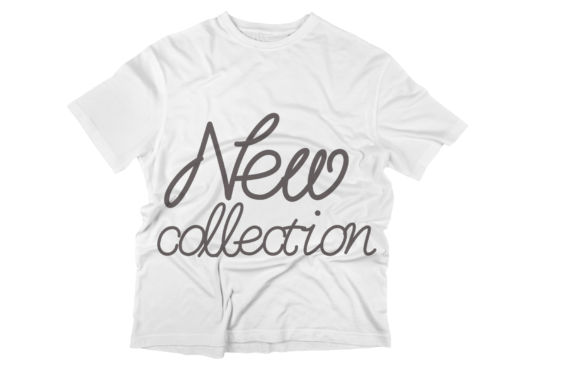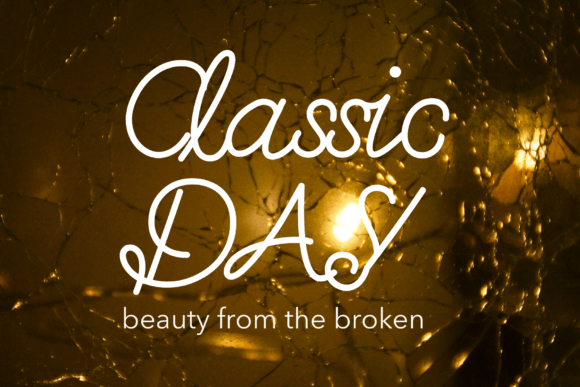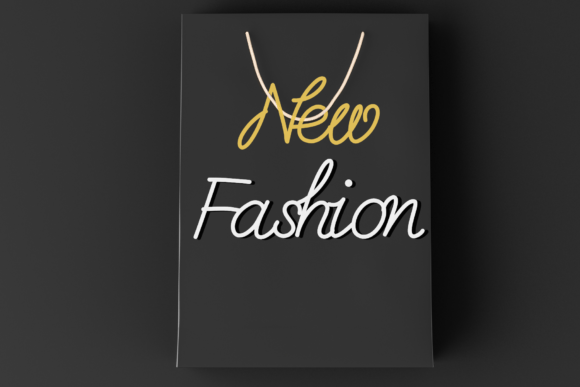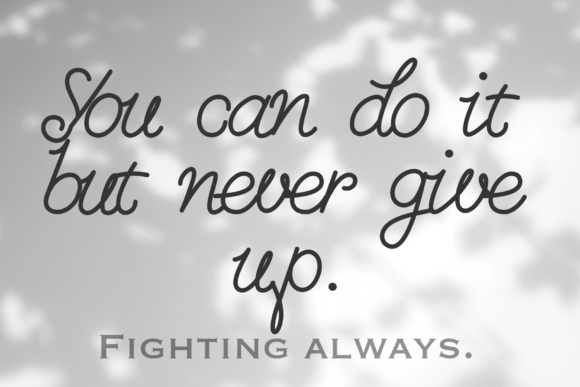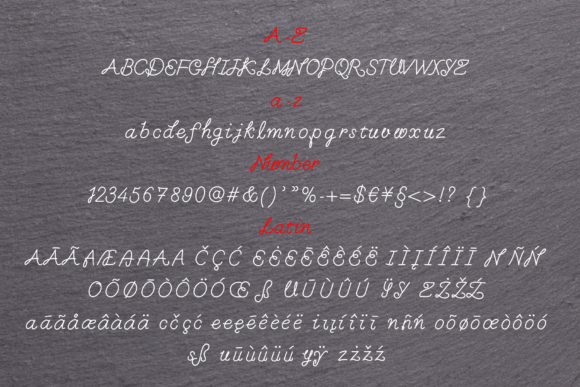
Bend Font: Elevate Your Designs with Elegance and Sophistication
Are you tired of using the same old fonts in your designs? Look no further than the Bend Font, a stunning handwritten font that is sure to become your new favorite. With its perfect blend of classy calligraphic influences and modern freshness, Bend Font is the ideal choice for designers and crafters looking to elevate their projects to new heights.
The Story Behind Bend Font
Bend Font is a meticulously crafted font that boasts a unique and exquisite design. Its creator has masterfully blended traditional calligraphic elements with contemporary twists, resulting in a font that is both elegant and fresh. Whether you’re working on a branding project, creating wedding invitations, or designing social media graphics, Bend Font is sure to make a lasting impression.
Key Features of Bend Font
- Handwritten with love: Bend Font is a true handwritten font, infused with the warmth and personality of human touch.
- Classy calligraphic influences: The font’s design is rooted in traditional calligraphy, giving it an air of sophistication and elegance.
- Contemporary and fresh: Despite its classic influences, Bend Font feels modern and up-to-date, making it perfect for a wide range of design applications.
- Highly versatile: Use Bend Font for everything from logos and branding to packaging, invitations, and more.
Why Choose Bend Font?
With so many fonts available, why choose Bend Font? Here are just a few compelling reasons:
- Stand out from the crowd: Bend Font’s unique design ensures that your projects will stand out from the competition.
- Easy to read: Despite its elegant design, Bend Font is highly legible, making it perfect for body text and headlines.
- Customizable: Experiment with different font sizes, colors, and styles to make Bend Font your own.
- Time-saving: With Bend Font, you can create stunning designs in no time, saving you hours of work and frustration.
Design Applications for Bend Font
Bend Font is an incredibly versatile font that can be used in a wide range of design applications, including:
- Branding and logos: Create a lasting impression with a custom logo or brand identity featuring Bend Font.
- Wedding invitations and stationery: Add a touch of elegance to your wedding invitations, save-the-dates, and other stationery with Bend Font.
- Social media graphics: Elevate your social media presence with stunning graphics featuring Bend Font.
- Packaging design: Make your products stand out on store shelves with eye-catching packaging featuring Bend Font.
Tips and Tricks for Using Bend Font
To get the most out of Bend Font, here are a few tips and tricks to keep in mind:
- Experiment with font sizes: Bend Font looks great in a variety of font sizes, from large headlines to smaller body text.
- Play with colors: Try pairing Bend Font with different colors to create a unique and eye-catching design.
- Add texture and patterns: Experiment with adding texture and patterns to your design to give it an extra boost of personality.
In conclusion, Bend Font is a truly exceptional font that is sure to become a favorite among designers and crafters. With its perfect blend of classy calligraphic influences and modern freshness, Bend Font is the ideal choice for anyone looking to elevate their designs to new heights. Whether you’re working on a branding project, creating wedding invitations, or designing social media graphics, Bend Font is sure to make a lasting impression. So why wait? Fall in love with Bend Font today and bring your projects to the highest levels!